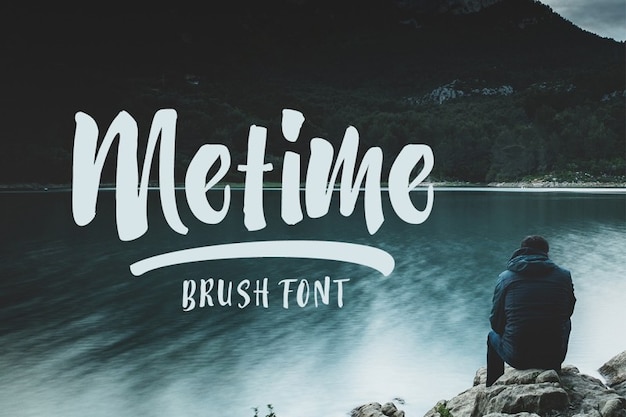
Metime Font
Metime font is like a moment of creative zen, where handwritten charm meets the elegance of simplicity in each brushstroke. It's your go-to choice for adding an artistic touch without fuss. Each character feels like a brush of inspiration, turning your text into a canvas for creativity. Metime is the font that effortlessly blends the beauty of handwritten charm with a clean simplicity, making your words a tranquil oasis of creativity and style.